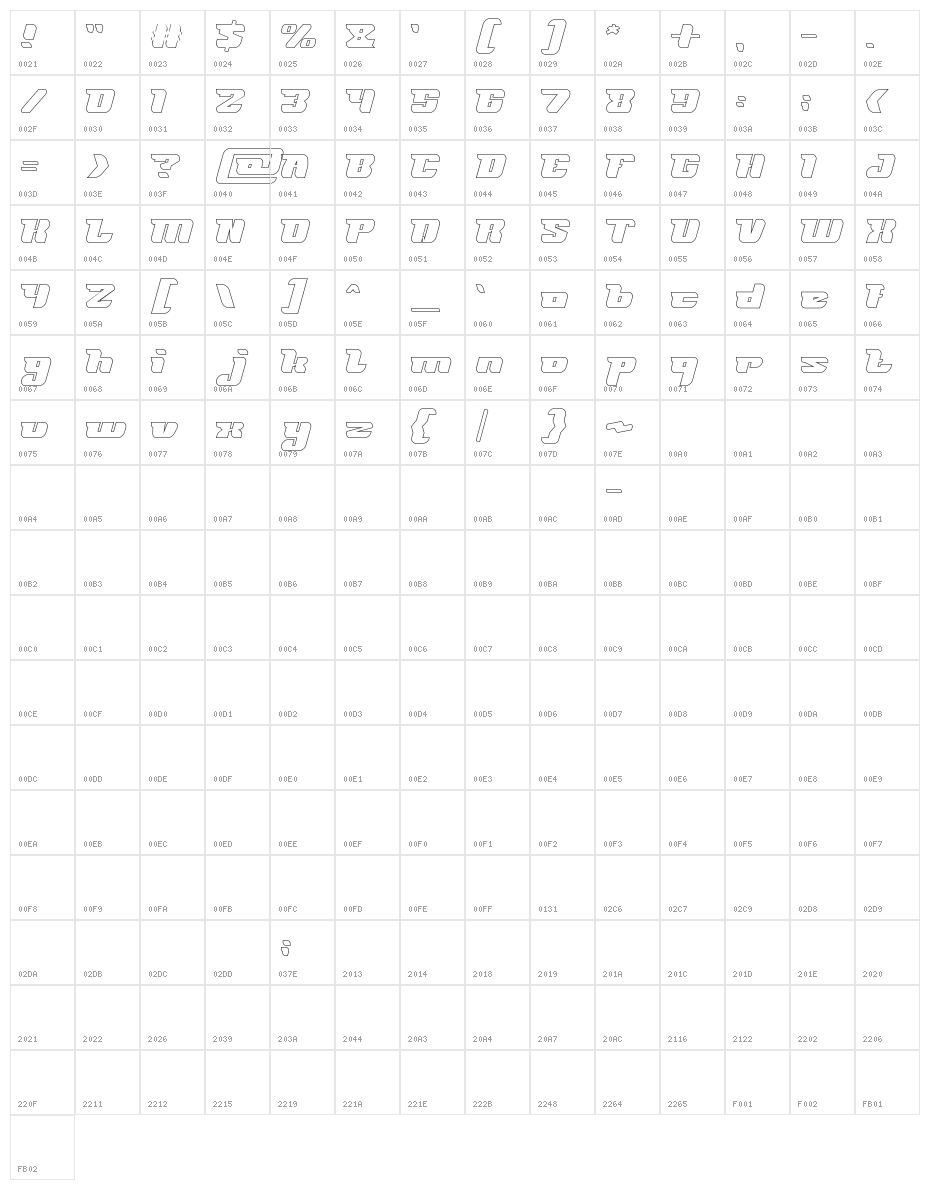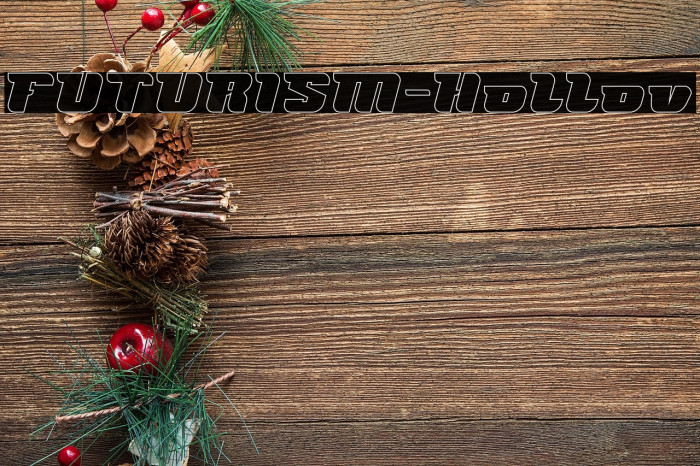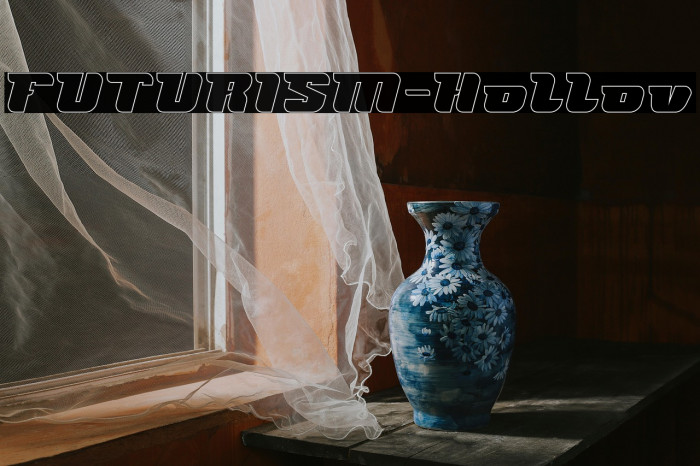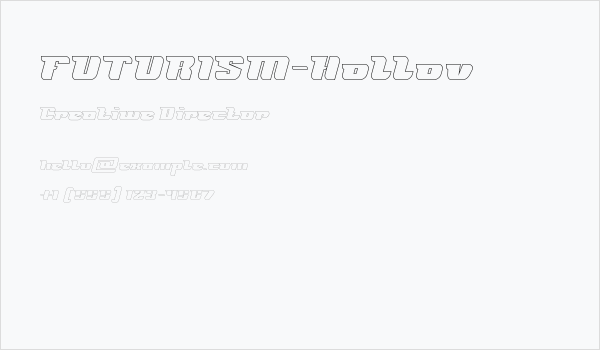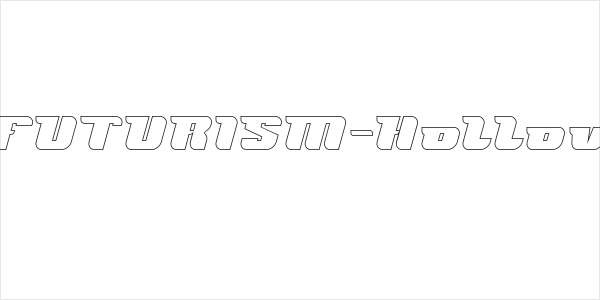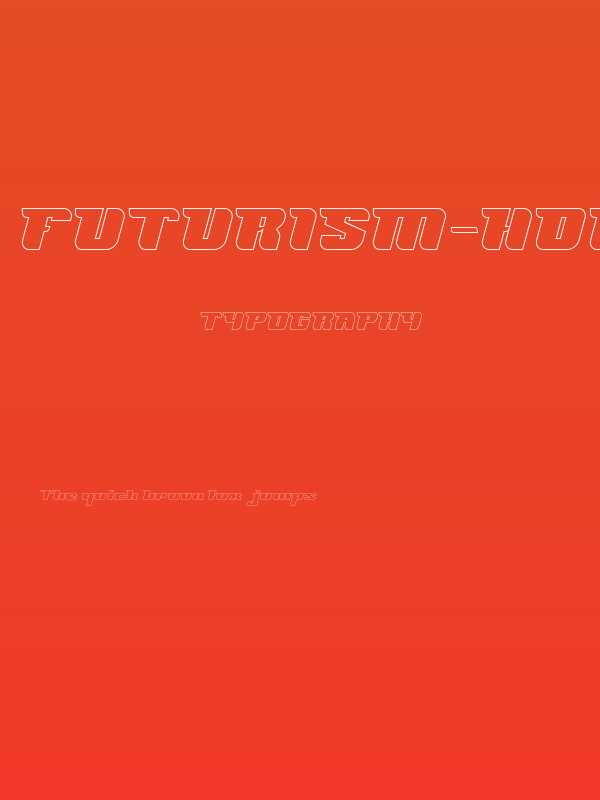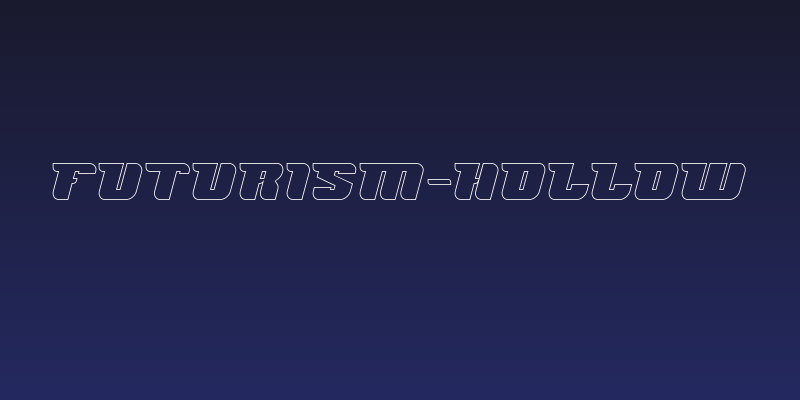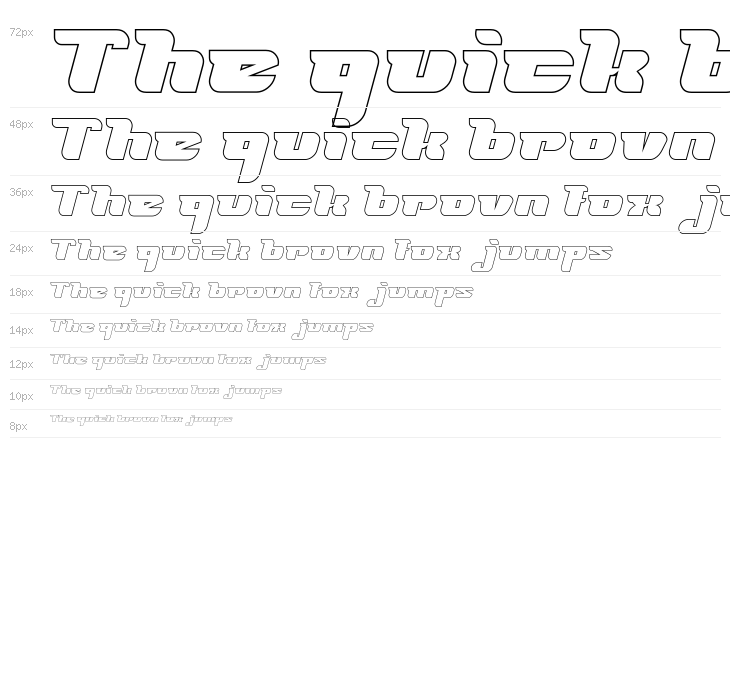
FUTURISM-Hollow Font
FUTURISM-Hollow Description
This font features a futuristic, hollow design with a bold and geometric structure. Each character is outlined, creating a hollow effect that emphasizes its modern and innovative style. The uppercase and lowercase letters maintain a consistent width, giving the font a cohesive appearance. The numerals and special characters are designed with the same hollow, outlined style, ensuring uniformity across all glyphs. The font's unique aesthetic makes it stand out, ideal for projects that require a modern and edgy look. Its design is both functional and artistic, suitable for various creative applications.
| Proposed Projects | Ideal for sci-fi themed designs, tech branding, futuristic posters, and digital artwork. |